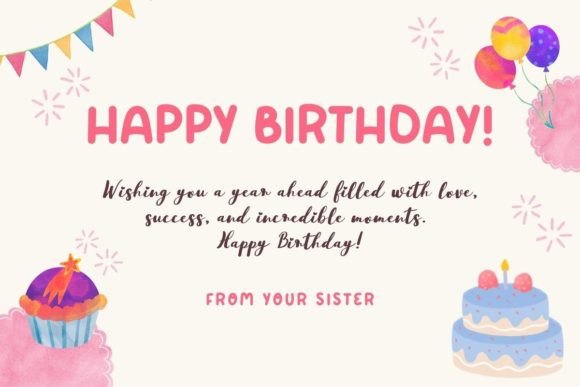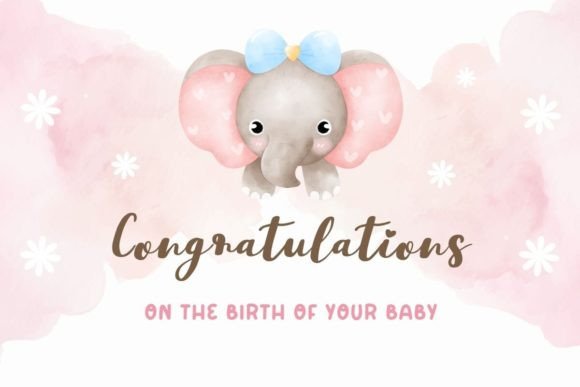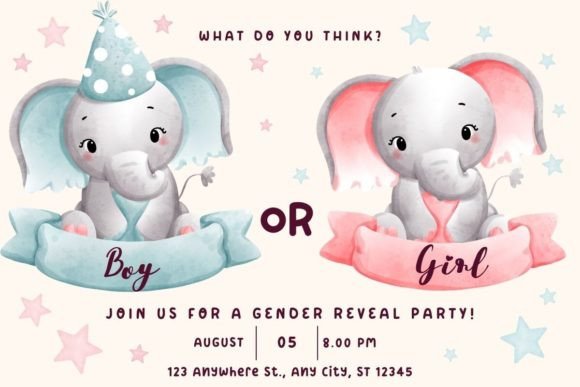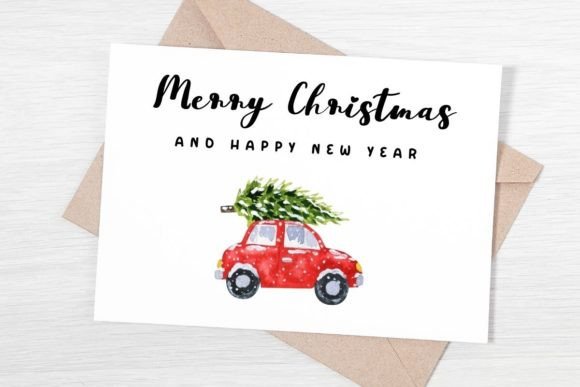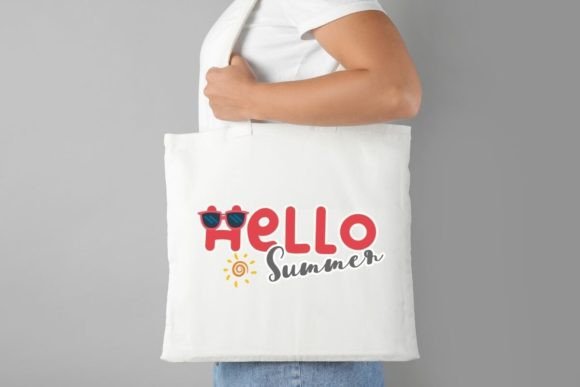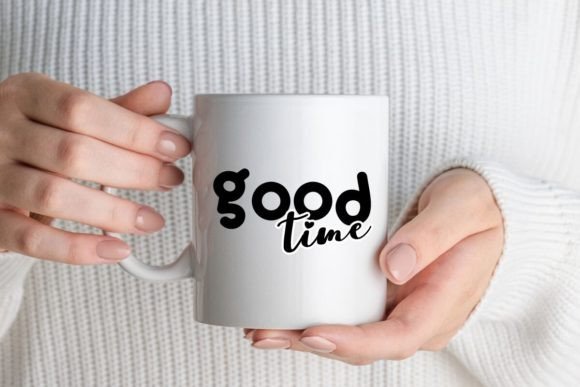
Designing with Positivity: The Power of Good Vibes Only Font
Have you ever felt like your design isn’t quite capturing the essence of your creative vision? You’re not alone. We’ve all been there – staring at a blank canvas, trying to bring our ideas to life. But what if you had the perfect tool to elevate your designs and spread a little positivity along the way?
Enter the Good Vibes Only Font, a delightful handwritten duo designed to bring a touch of warmth and personality to your work. Whether you’re creating a social media post, designing a product, or crafting a heartfelt message, this font is the perfect companion. With its versatility and charm, the Good Vibes Only Font is a must-have for designers looking to take their projects to the next level.
Good Vibes Only Font Key Features
- Font Family: A unique, hand-drawn font designed to evoke feelings of positivity and happiness.
- Character Set: Includes a wide range of characters, including uppercase and lowercase letters, numbers, and punctuation marks.
- Unique Characteristics: Features a playful, cursive style with irregular line widths and subtle flair, giving it a distinctive and eye-catching appearance.
Good Vibes Only Font Review
Overall, I’d say the “Good Vibes Only Font” is a decent choice for those looking for a cheerful, playful font. ✨ It’s got a fun, laid-back vibe that’s perfect for casual projects or social media graphics.
- ✨ Easy to read in both large and small font sizes
- ✨ Wide range of customization options, including color and texture
- ✨ Suitable for a variety of projects, from invitations to social media posts
- ⚠️ Limited availability in certain font sizes or styles
- ⚠️ May not be suitable for professional or formal projects
- ⚠️ Some users may find the font too playful or overwhelming
Overall, I’d give the “Good Vibes Only Font” 3.5 out of 5 stars. While it’s a great choice for casual projects, it may not be the best fit for more formal or professional work. ✨ With a bit of creativity and experimentation, it can be a great addition to any design project.
The Good Vibes Only Font is perfect for creating fun and playful designs, such as social media posts, blog headers, and wedding invitations.
For the most effective use of the font, try pairing it with bright and bold colors and playful graphics.